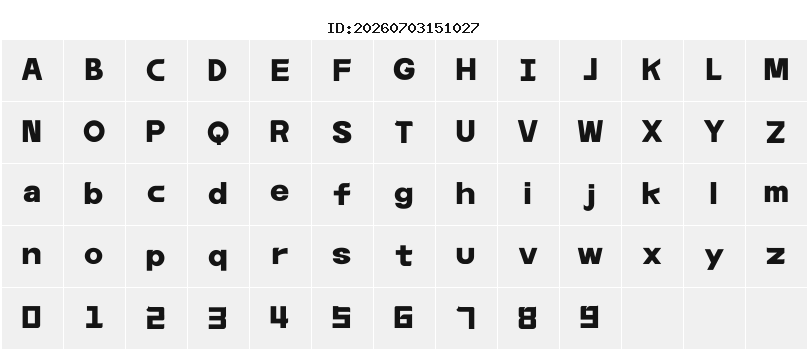
191-上首祥瑞体 Preview
• Font Name: 191-上首祥瑞体
• Font ID: 191-SSXiangRuiTi:Version 6.00
• Full Font Name: 191-上首祥瑞体
• Version: Version 6.00 December 25, 2023
• PostScript Name: 191-SSXiangRuiTi
• Character Count: 7569
• Manufacturer: 上首造字
About 191-上首祥瑞体.ttf
191-上首祥瑞体.ttf is a modern, elegant sans-serif font designed for ultimate readability and visual harmony. Perfect for branding, headlines, web design, and print materials.